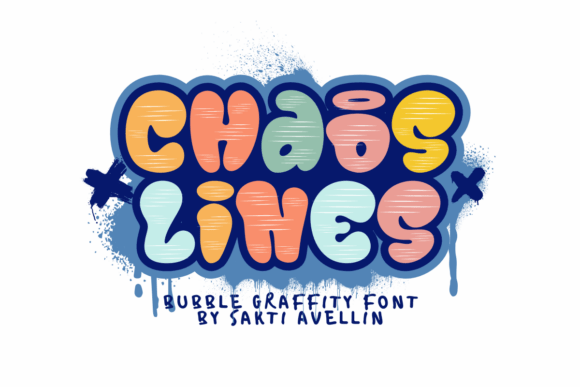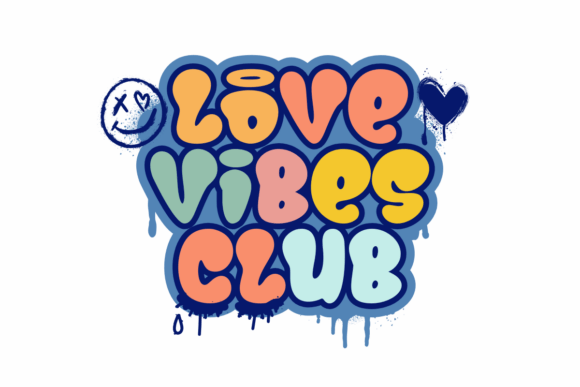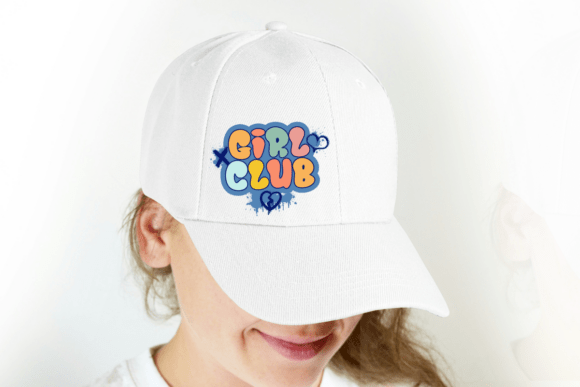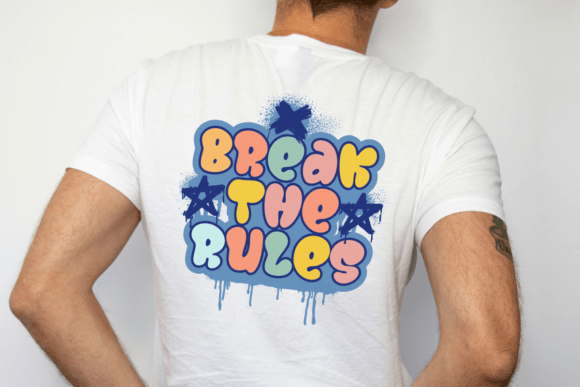
Chaos Lines Font: A Playful Bubble Graffiti Display Font
About the Chaos Lines Font
Experience the unique personality of Chaos Lines Font, a font designed for impact. Step into the realm of magical artistry with Chaos Lines, a mesmerizing bubble graffiti font meticulously sculpted by hand. This beguiling typeface guarantees to infuse a refreshing energy into your design vision. Let your ingenuity run wild across a diverse range of media, from attention-grabbing posters to entrancing headlines and brand identity.
Be it jazzing up wall art or imprinting fashion statements on t-shirts, caps, and hoodies, Chaos Lines brings a playful flourish of chic and charm. Even everyday home accents like picture frames and doormats are transformed with this compelling font. Experience the liberating gratification of artistic emancipation through the captivating charm of Chaos Lines.
Chaos Lines Font Usage Examples
Chaos Lines Font Example